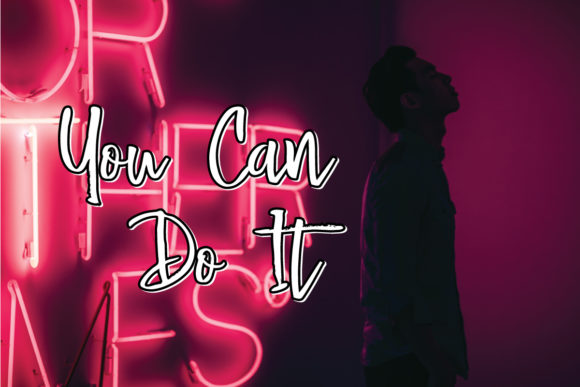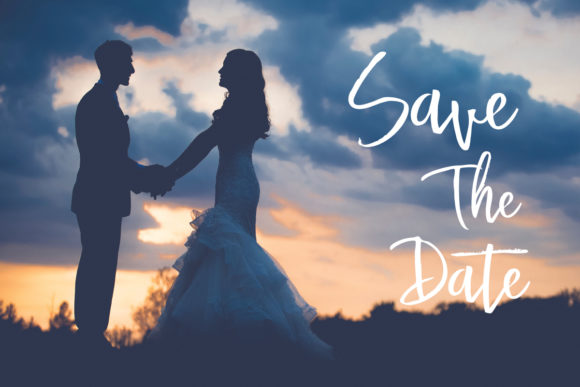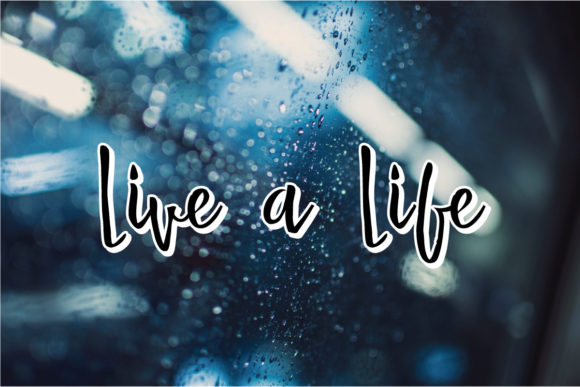
Highlove Font
About Highlove Font
Highlove is a modern and charming handwritten font, full of authenticity. Use it to add a personal feel to any design project!